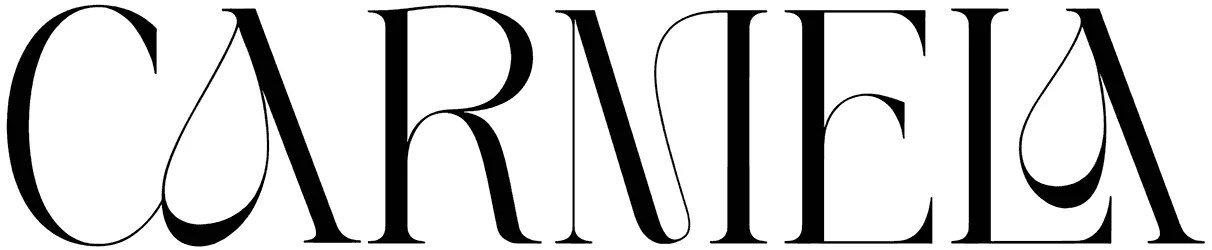
Carmela Font
Carmela is a splendid ligature font that can save the day when you have an important design to deliver and it can only be handled with the finest fancy font of all time.
Reflecting elegance and prestige all over, Carmela is an excellent match for luxury business cards representing a fashion stylist, art collector, interior designer, wedding planner, and so on. It has no lowercase character but a lot of sophistication to bring to your designs.